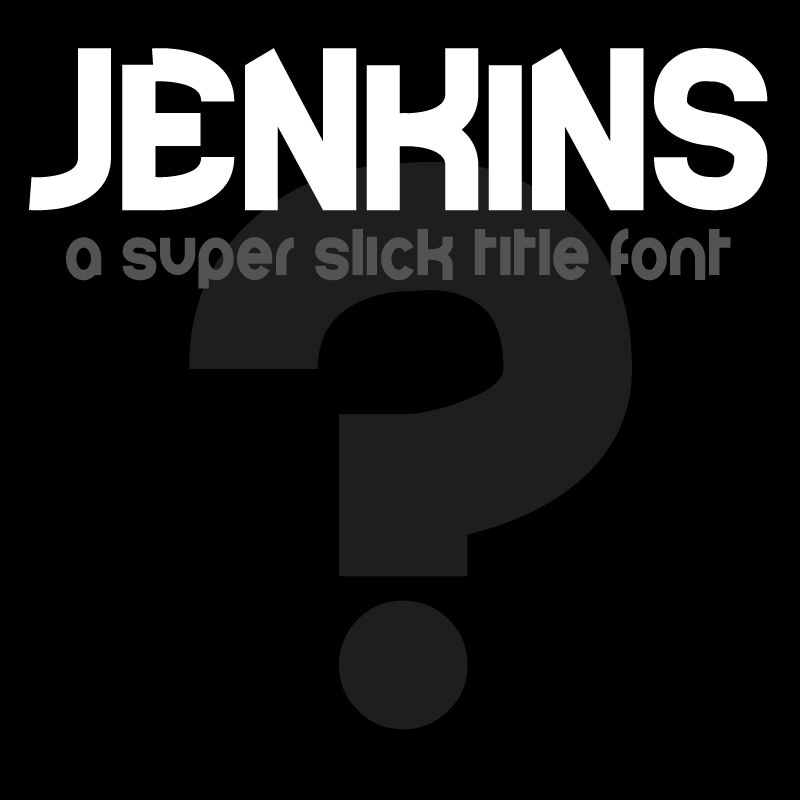
Check out my new Font Blog to stay up to see when I release new fonts! http://murafonts.blogspot.com/ ----------------------- This font is was created for my game design partner, the Elusive Jenkins. This is a Comic Style font that would be excellent for Titles, Logo Type, or other Comic Book or Artistic applications. It has a slight Anime-ishness to it as well. Check out our games at: http://tracethisstudios.com/ This is free to do with whatever you wish, personal or commercial. Just don't claim ownership, sell it, redistribute it, or be a jerk with it. It might be cool if you use the font to either credit MuraKnockout Media or Michael Muranaka, or show me how you used it! Enjoy! |